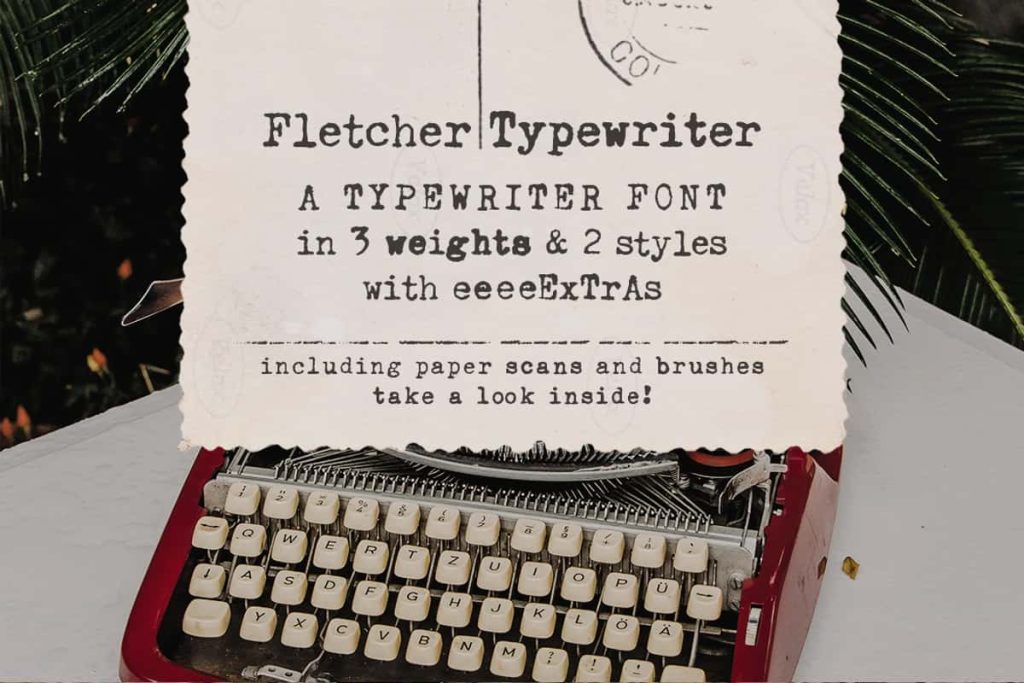
Fletcher Typewriter Font & ExtrasleastedDecember 25, 2024Fonts Fletcher Typewriter font and extras is a mini vintage design kit that includes an authentic vintage typewriter font Download